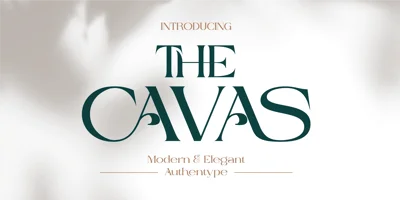
Cavas Font
Cavas Font is perfect for wineries, champagne producers, Spanish cava brands, upscale dining establishments, Mediterranean restaurants, cellar tours, wine festival promotions, vineyard marketing, and any project requiring typography with sparkling sophistication and effervescent elegance.
What makes Cavas Font exciting is its effervescent elegance that captures the celebratory spirit and sparkling sophistication of fine Spanish cava with letterforms that seem to dance and bubble with the joyful energy of champagne celebrations. This distinctive typeface embodies the festive tradition of sparkling wine culture with flowing curves and elegant details that reflect the refined craftsmanship and celebratory nature of premium cava production. The font's bubbly character and Mediterranean sophistication make it perfect for brands celebrating life's special moments, luxury beverages, and the timeless tradition of toasting with sparkling wine.
The Cavas Font family includes regular and italic weights, featuring complete uppercase and lowercase alphabets, numerals, punctuation marks, and sparkling wine-inspired decorative elements. The font maintains consistent effervescent elegance throughout all weights while ensuring excellent readability for both celebratory headlines and sophisticated text applications in hospitality and luxury beverage contexts.
Whether you're designing for Spanish wineries, creating luxury beverage branding, or developing celebration event materials with sparkling wine aesthetics, Cavas Font delivers unmatched effervescent sophistication and Mediterranean elegance to your projects. This exceptional typeface transforms ordinary text into sparkling expressions of celebration and refinement that honor the ancient tradition of winemaking and the joyful spirit of special occasions. The font's bubbly character makes it ideal for wineries, luxury restaurants, and celebration venues. Download this remarkable font today and bring the sparkling elegance of Spanish cava tradition to your design projects with authentic Mediterranean sophistication and effervescent celebratory charm.